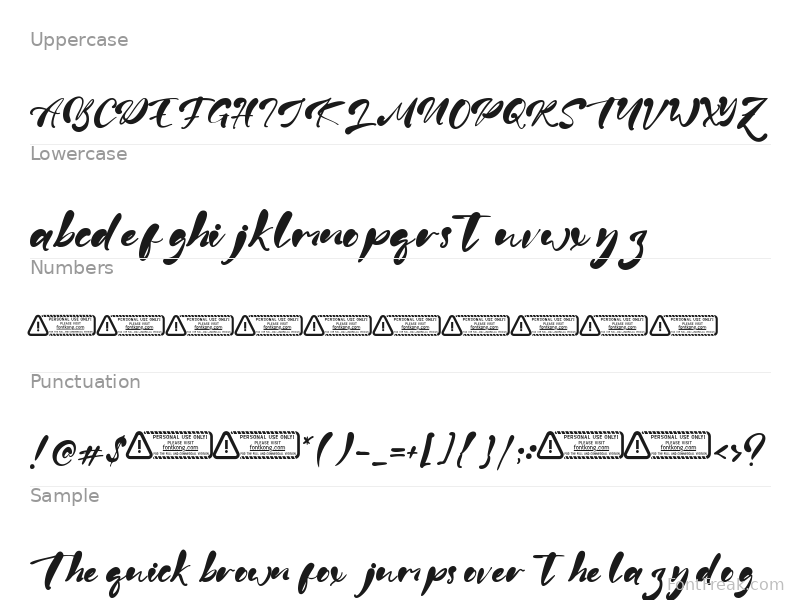
Claralove
Claralove, crafted by Kong Font in 2021, is a stunning handwritten typeface that exudes elegance and charm. This font beautifully combines fluid strokes with a warm, inviting personality, making it an ideal choice for various creative projects. The visual characteristics of Claralove are defined by its moderate stroke weight and graceful curves, which create a harmonious balance between legibility and artistic flair. The spacing is well-considered, enhancing readability while maintaining a personal touch, and the subtle decorative elements add a unique character that sets it apart from conventional typefaces.
This versatile typeface is perfect for wedding invitations, where its romantic style can convey heartfelt messages. It also shines in crafting eye-catching restaurant menus, allowing establishments to showcase their culinary delights with a stylish flair. Additionally, Claralove is excellent for social media graphics and marketing materials, helping brands to establish a friendly and relatable image. Graphic designers and small business owners will find this font particularly appealing, as it effortlessly elevates any design project.
Furthermore, content creators can utilize Claralove in blogs and personal projects to draw readers in with its approachable aesthetic. The font's unique blend of elegance and warmth makes it suitable for both casual and formal applications, striking the right chord for various audiences.
What truly makes Claralove stand out is its ability to evoke emotion and connection, making every word feel special. Whether you are designing a heartfelt greeting card or a chic event flyer, this font brings a personal touch that resonates with viewers. For those interested in enhancing their creative toolkit, the Claralove font free download offers an accessible opportunity to incorporate this beautiful typeface into your designs.